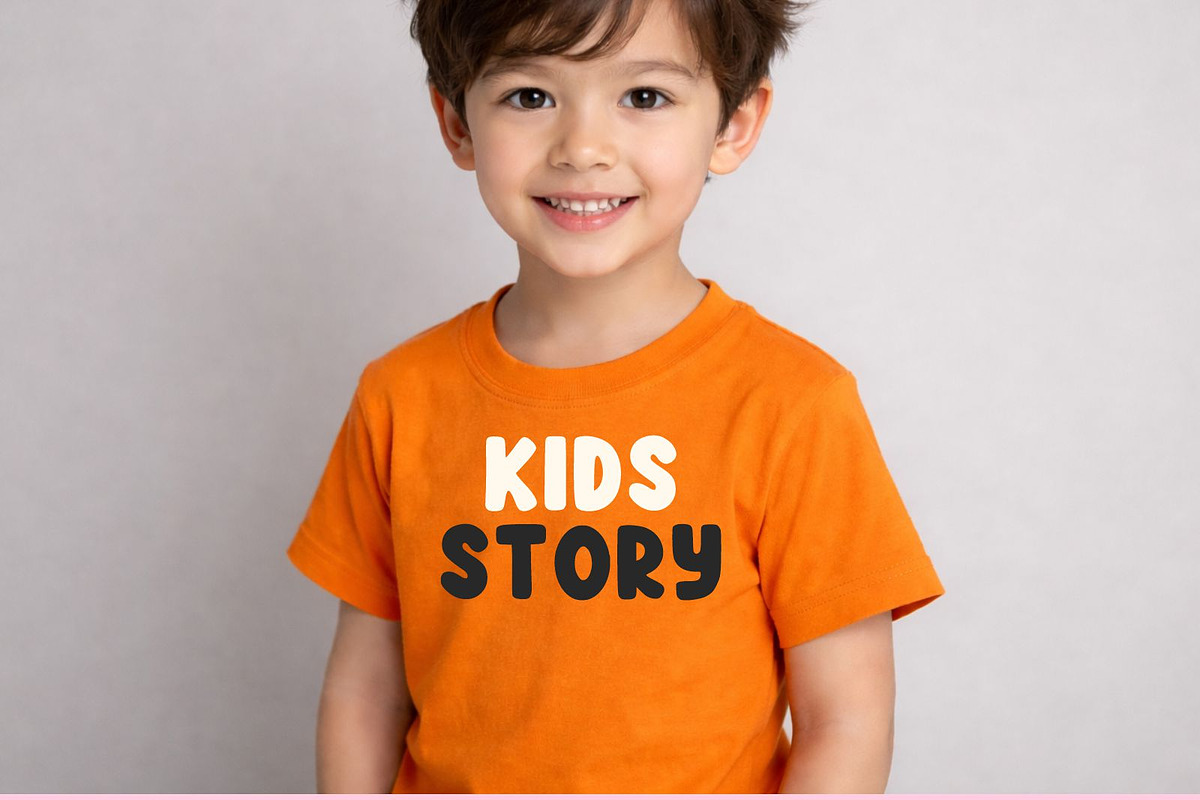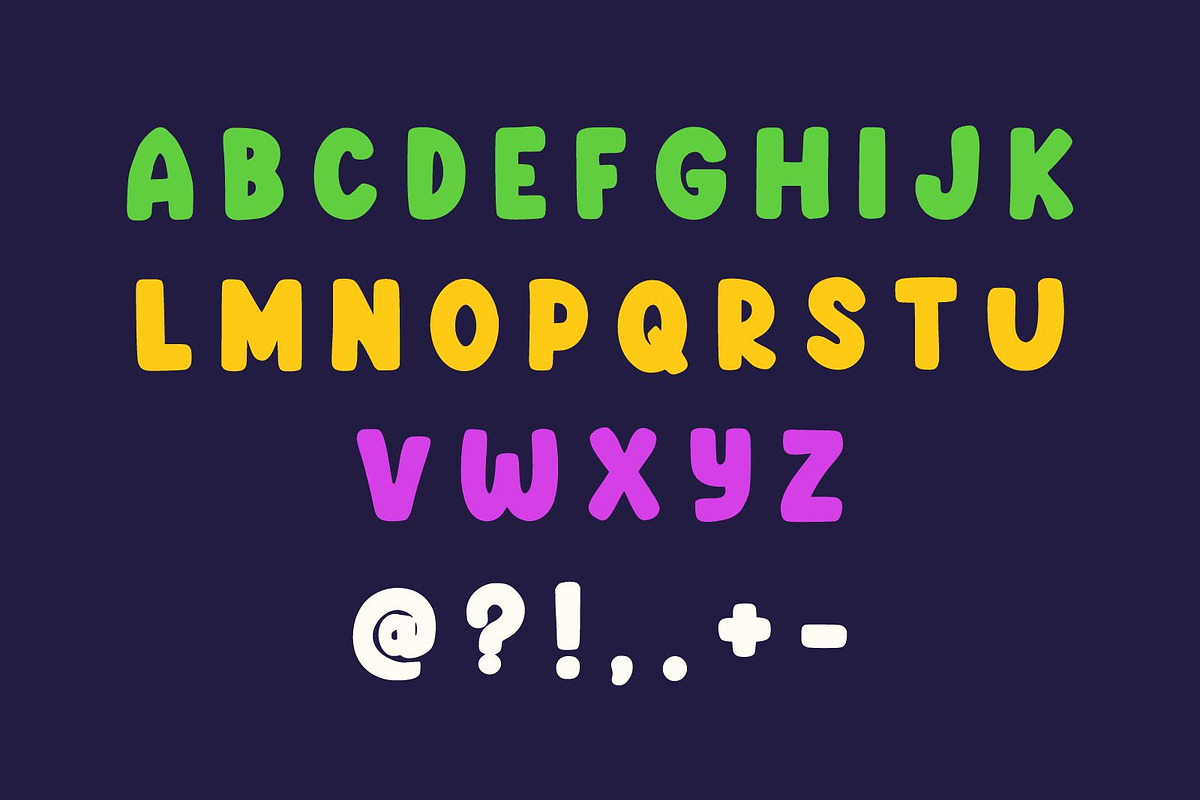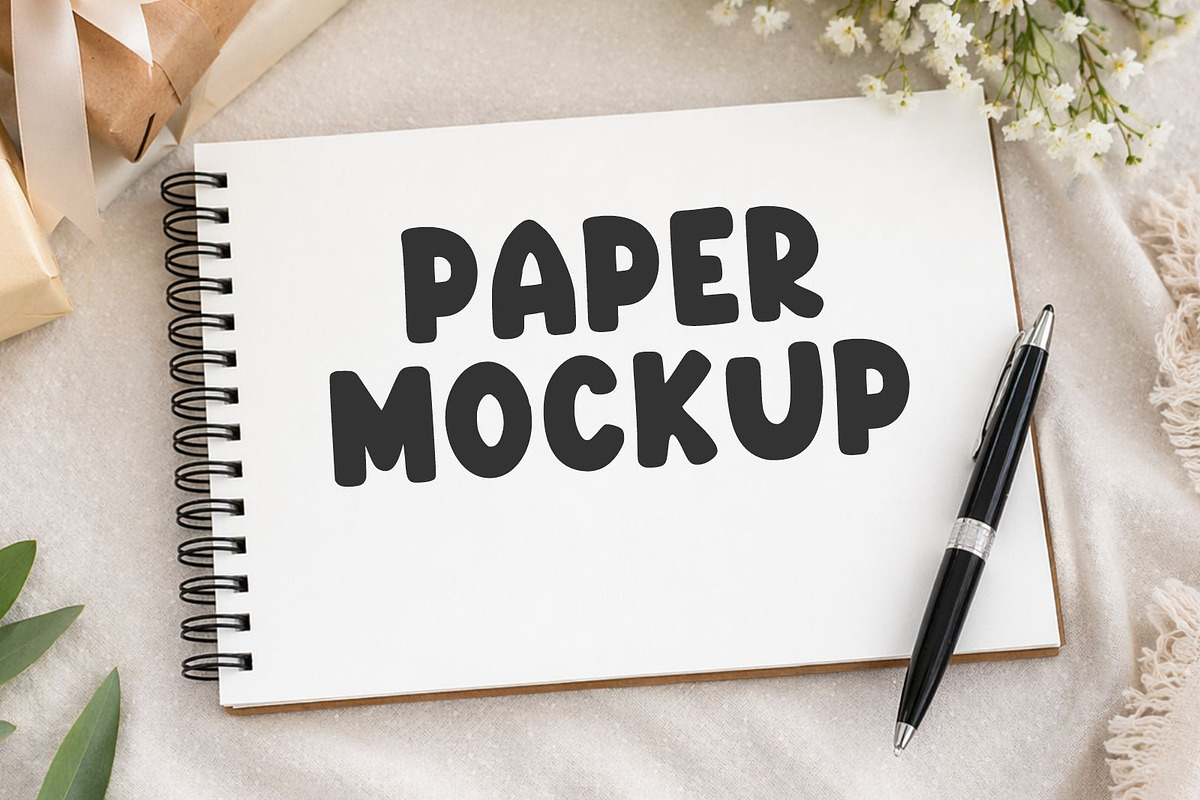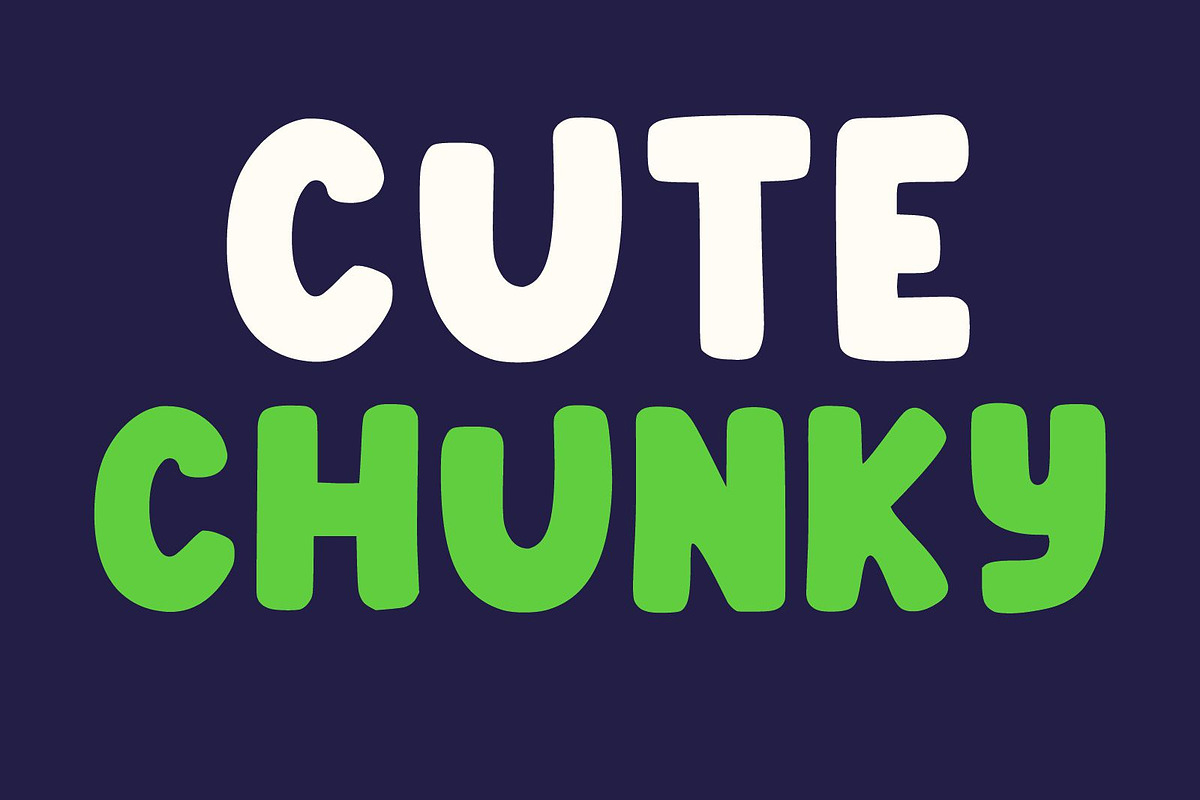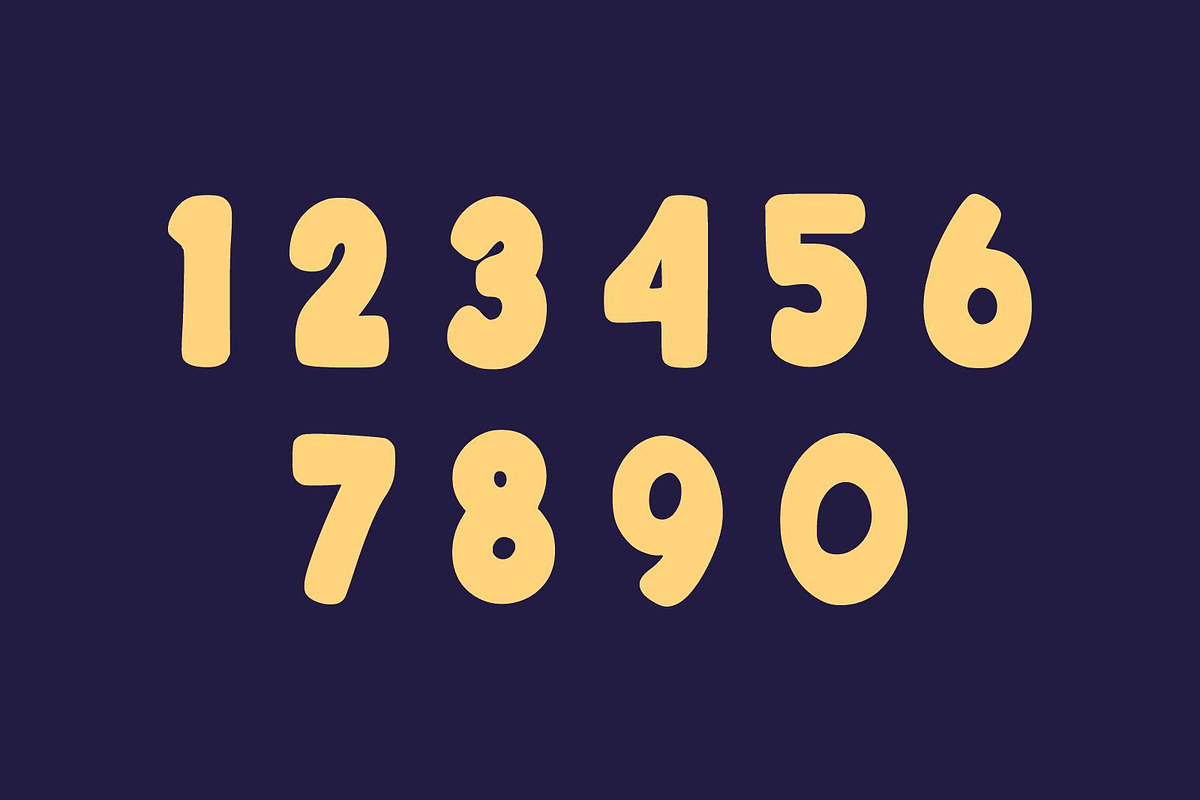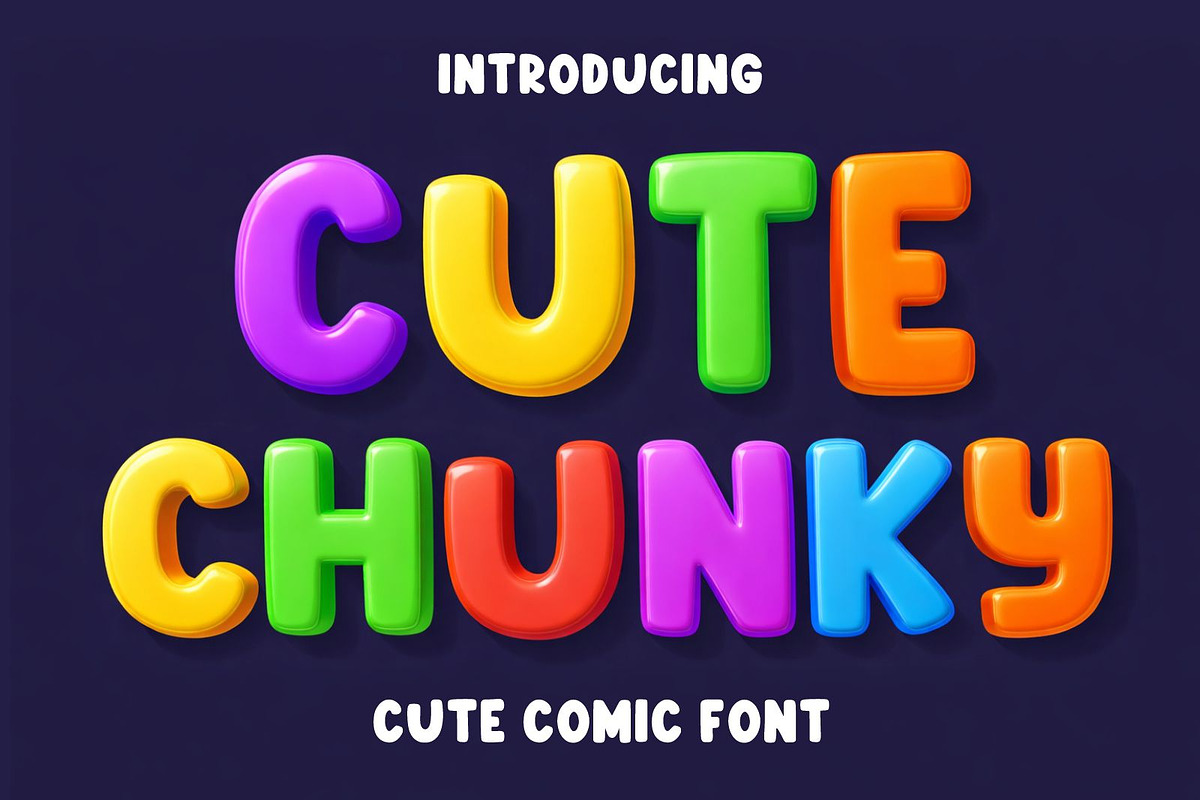
Cute Chunky Cute Comic Display Font
Cute Chunky is a fun and playful comic display font with bold rounded letters and colorful chunky styles. Perfect for kids projects, cartoon designs, posters, toy branding, birthday invitations, YouTube thumbnails, comic titles, packaging, stickers, and cheerful typography creations. This font brings a happy, energetic, and eye-catching look to every design project.